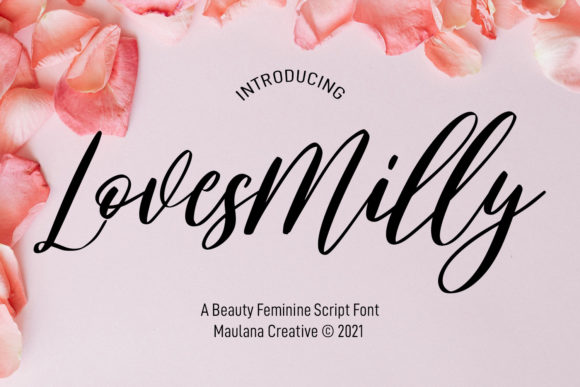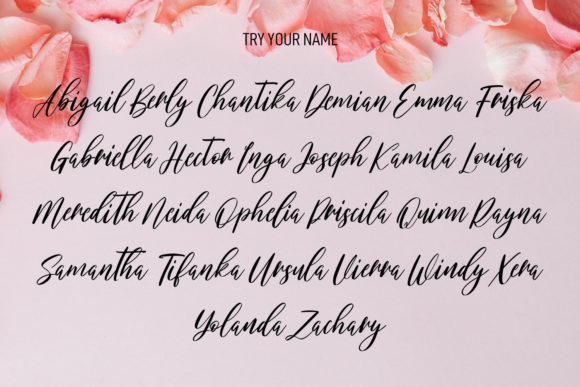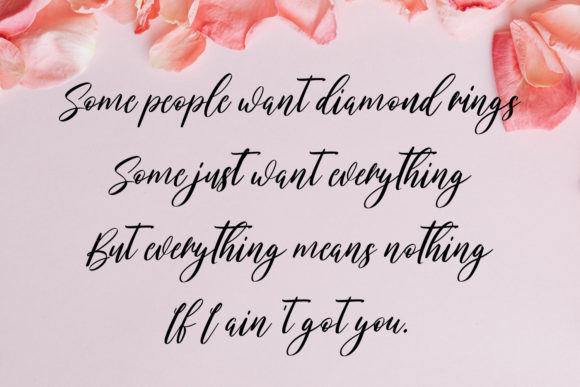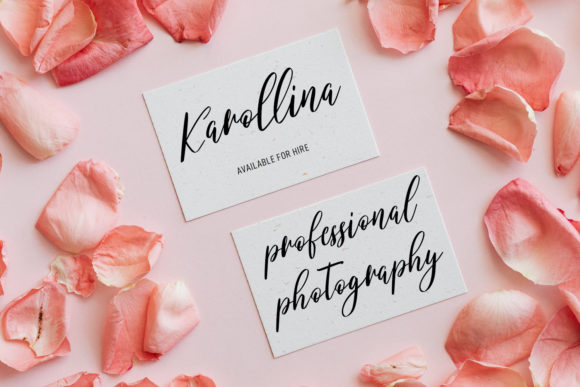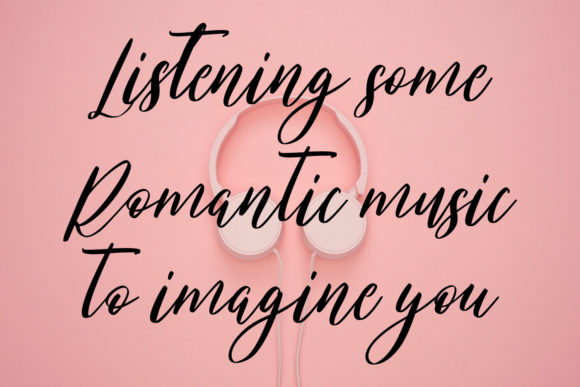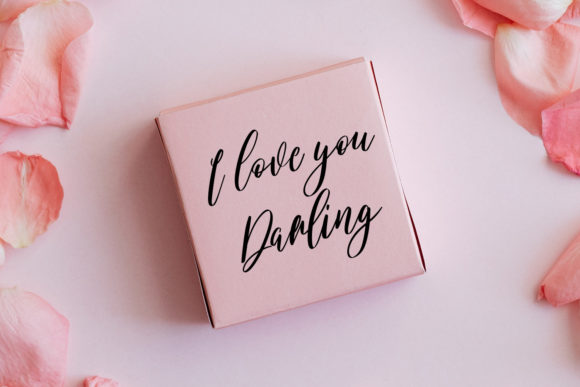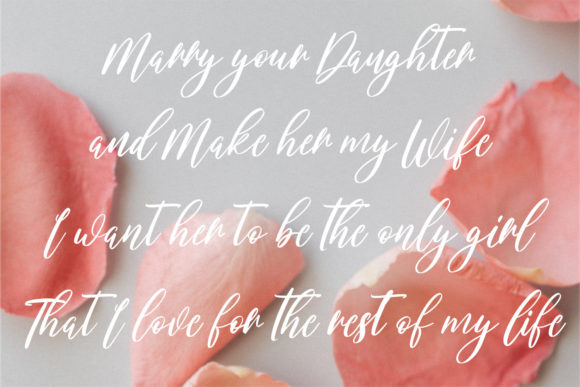
Lovesmilly Feminine Font
About Lovesmilly Feminine Font
Lovesmilly Feminine is a lovely and delicate script font that exudes elegance and class. This font was particularly crafted for those who need a beautiful and refreshing look to their designs.